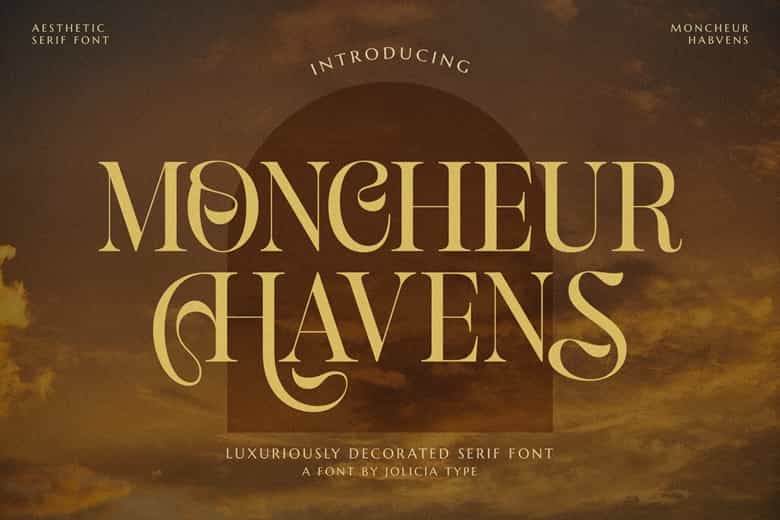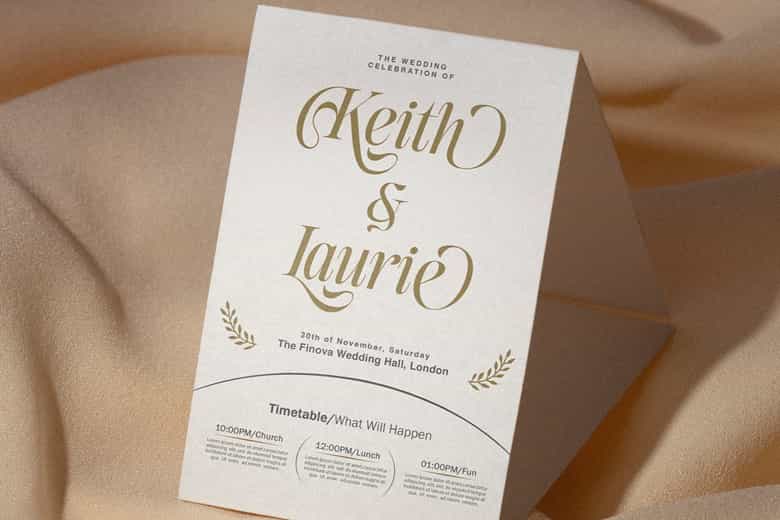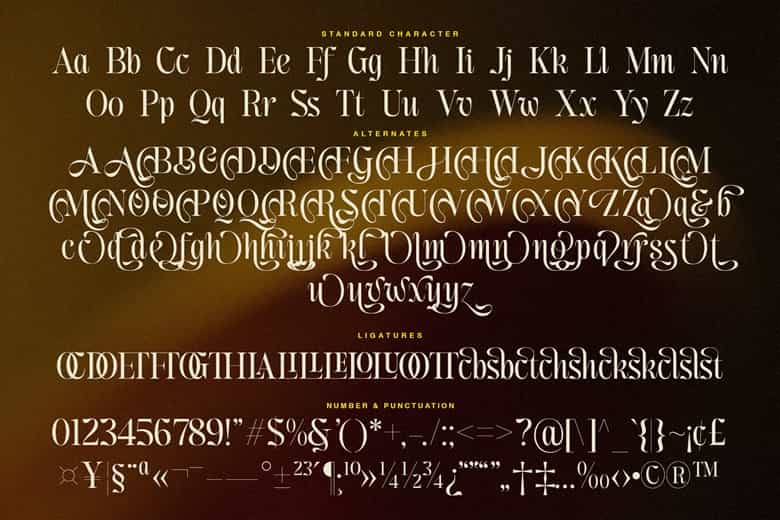
Moncheur Havens is a beautiful serif font that has a classic elegant look with a modern twist to it. This font has normal and italic styles and can be applied for any design needs as it is elegant font. Moncheur Havens is a beautiful typeface that can be used for display purposes, with details added into each letter creating an interesting and clear look that can be applied in branding and editorial design.